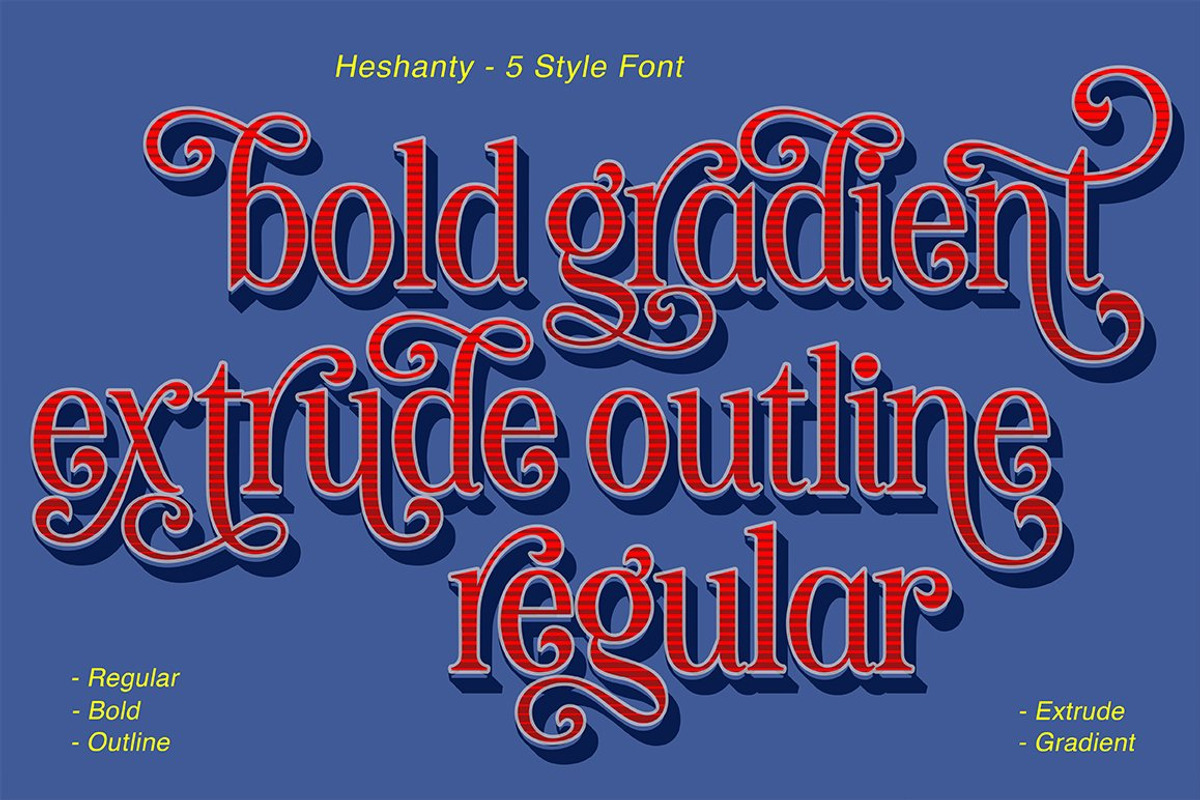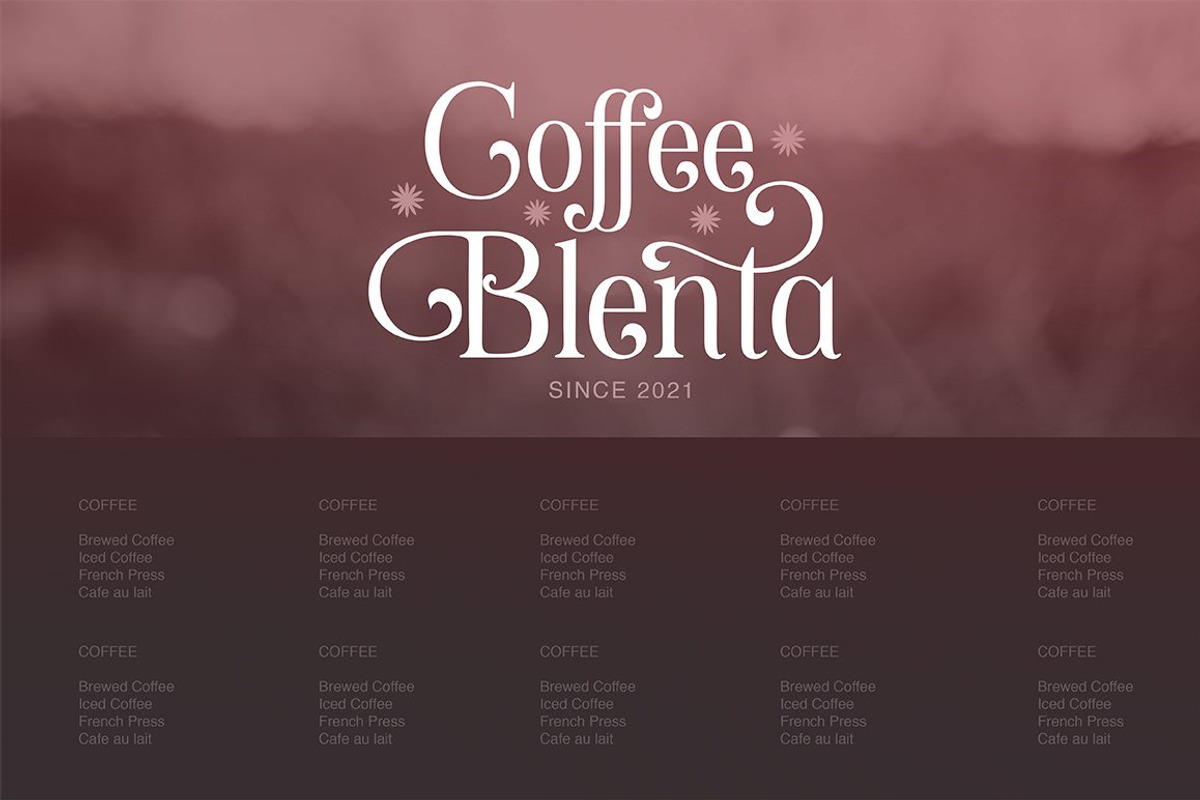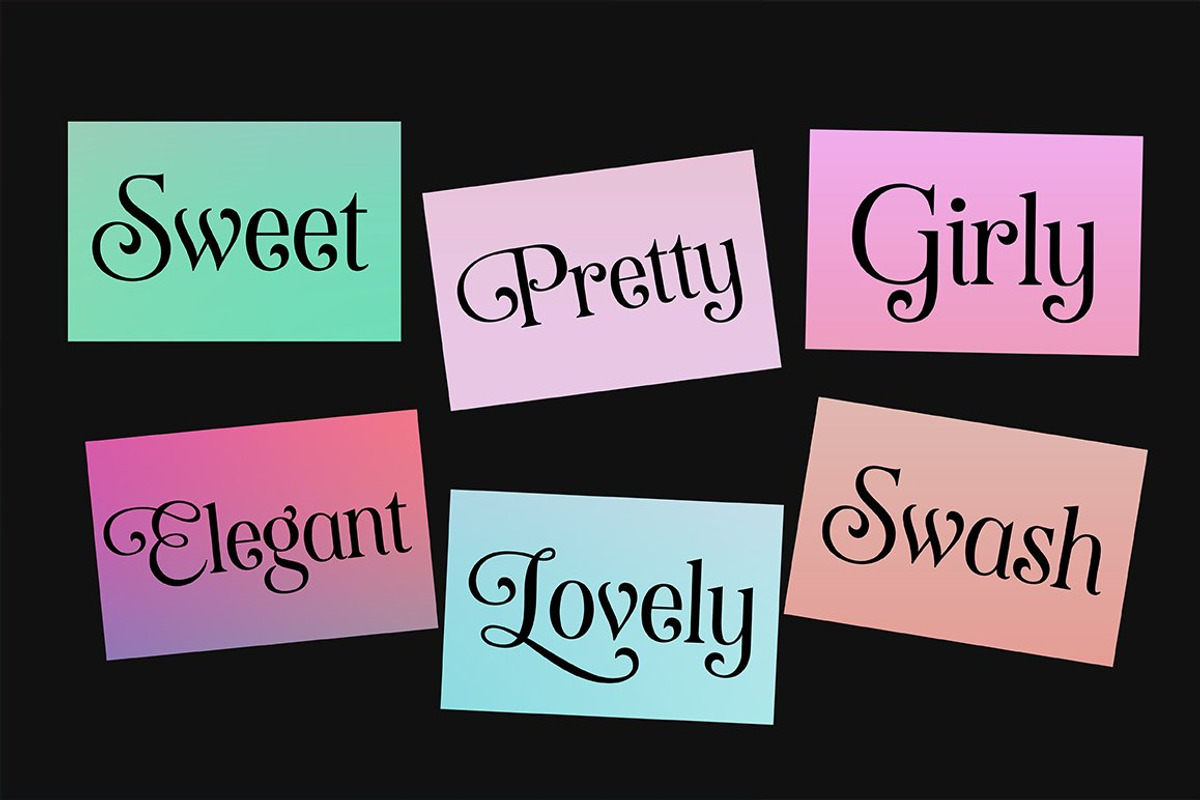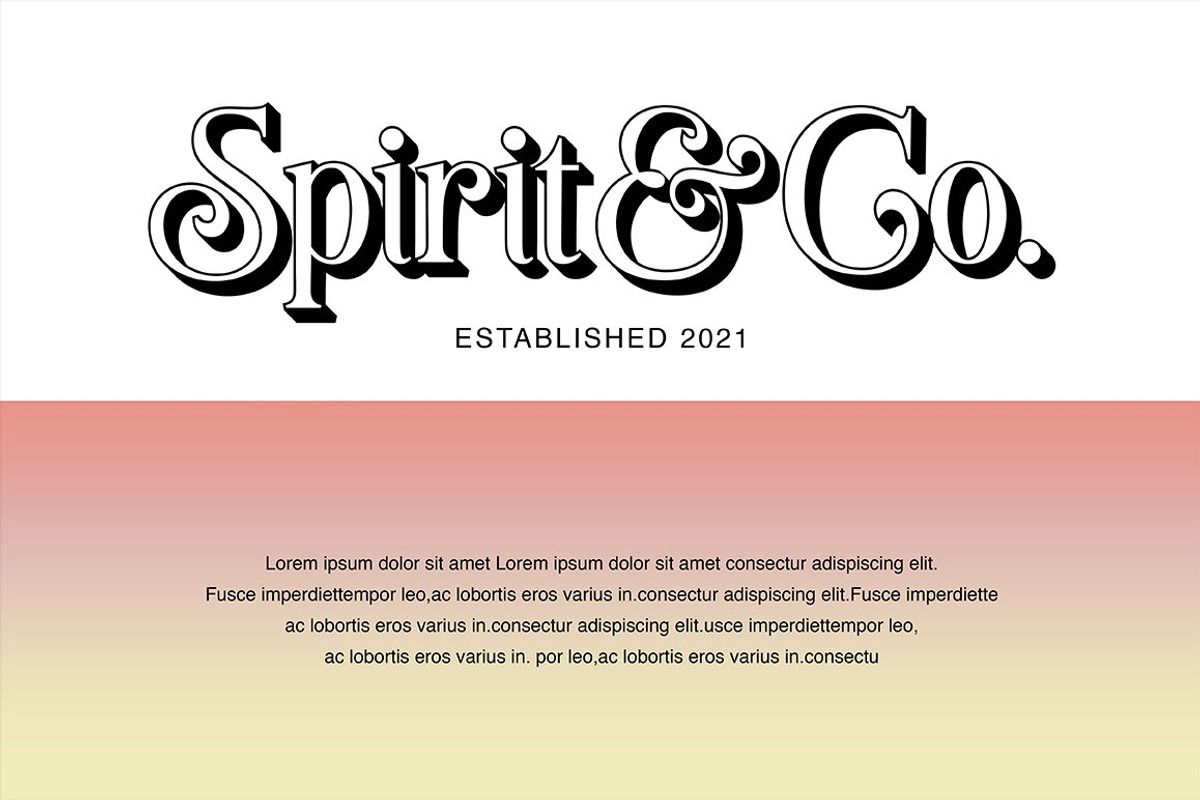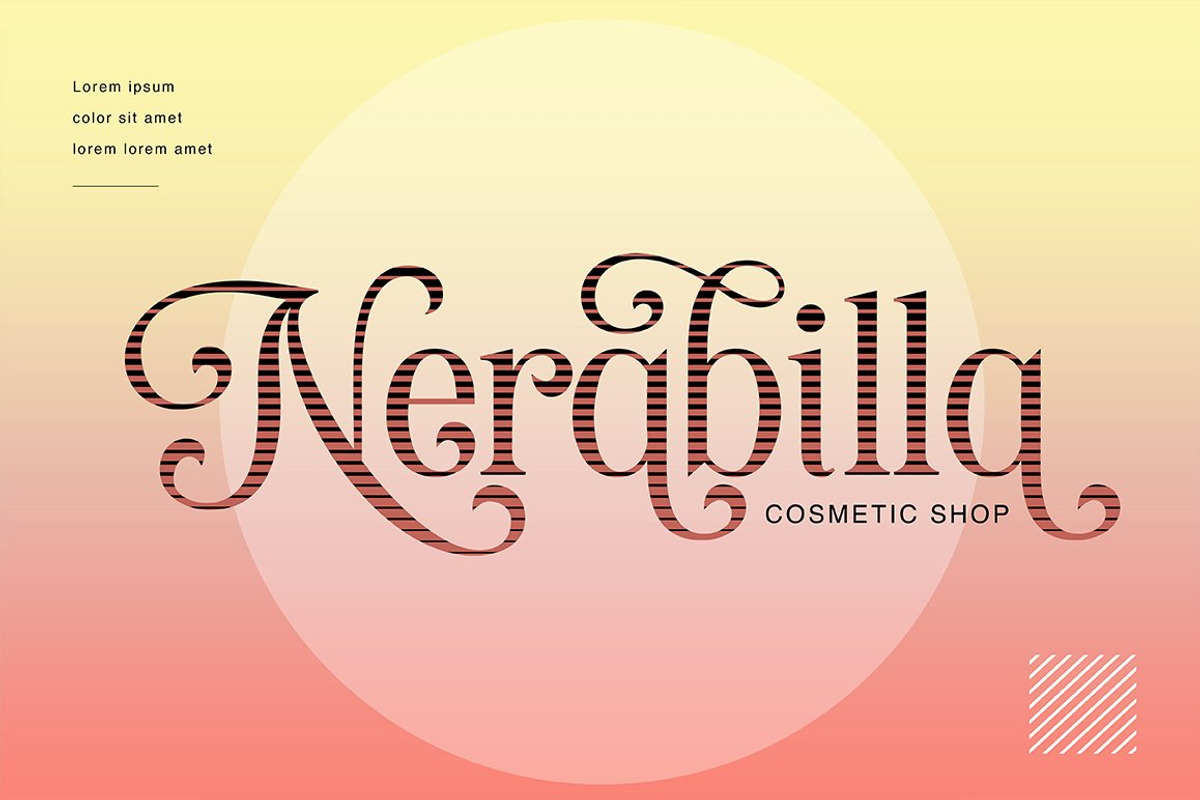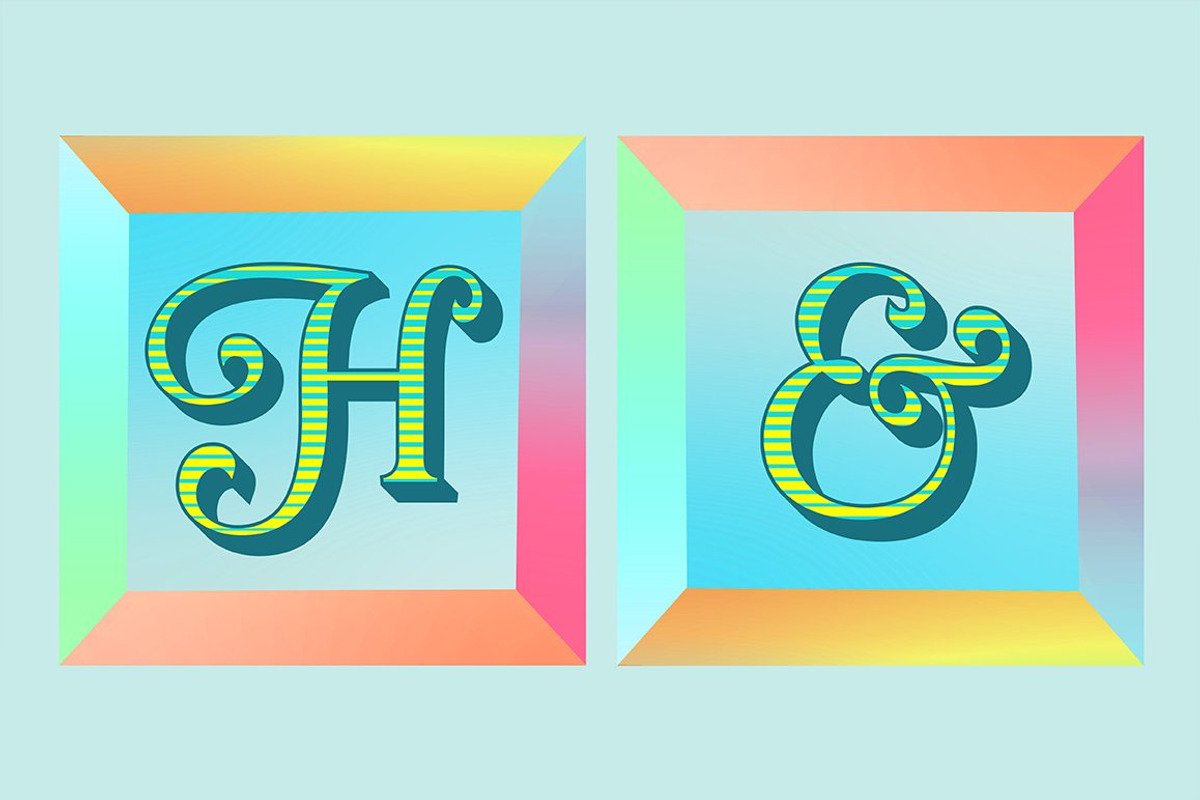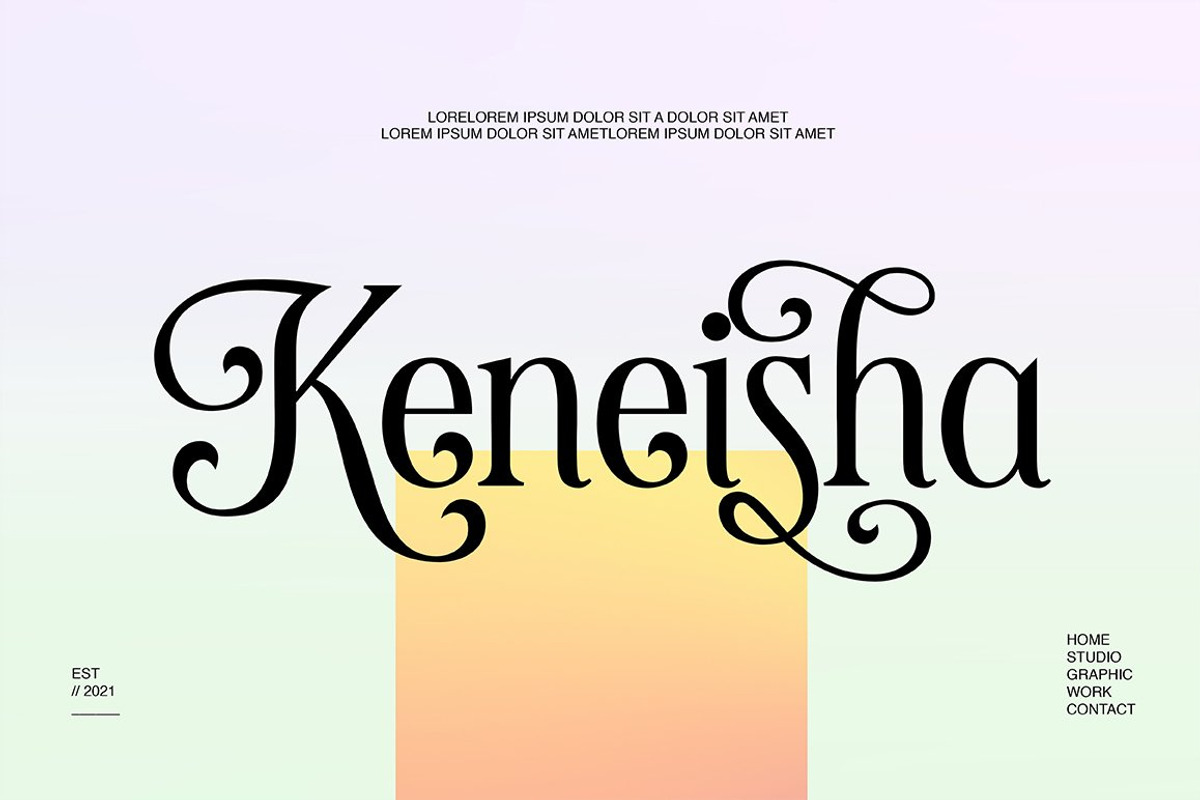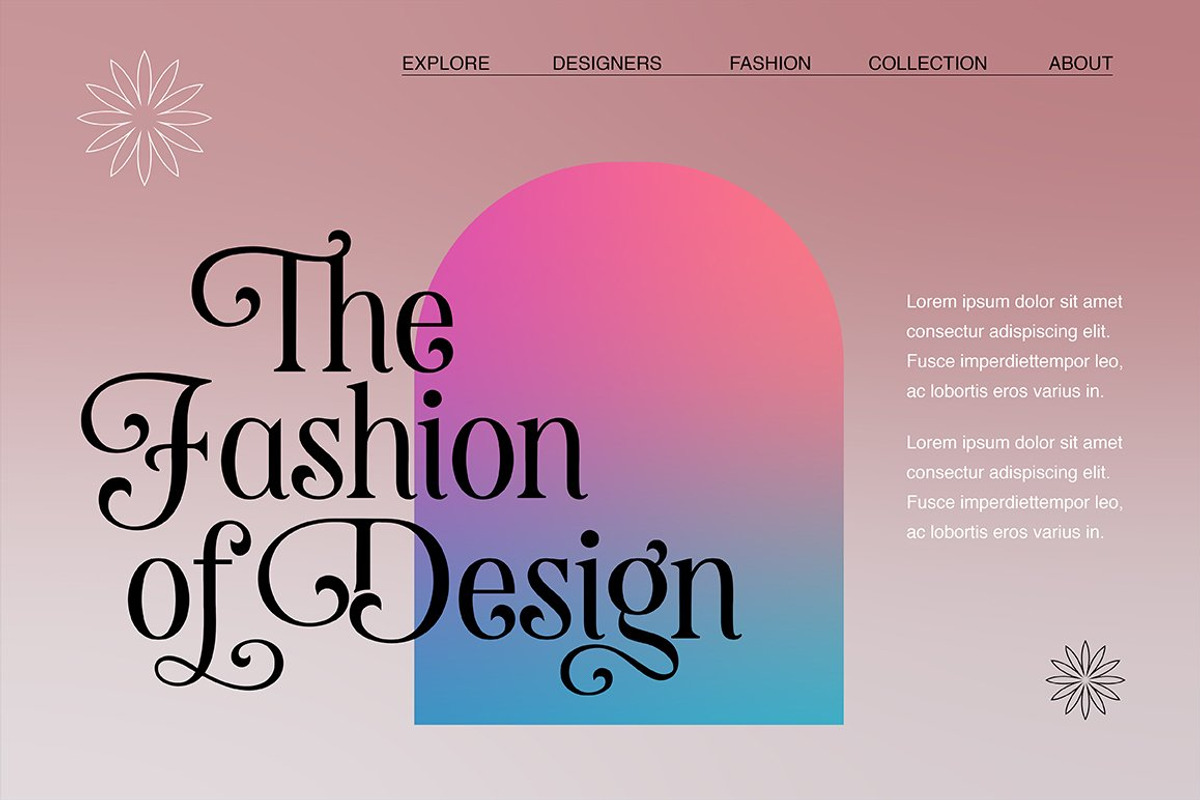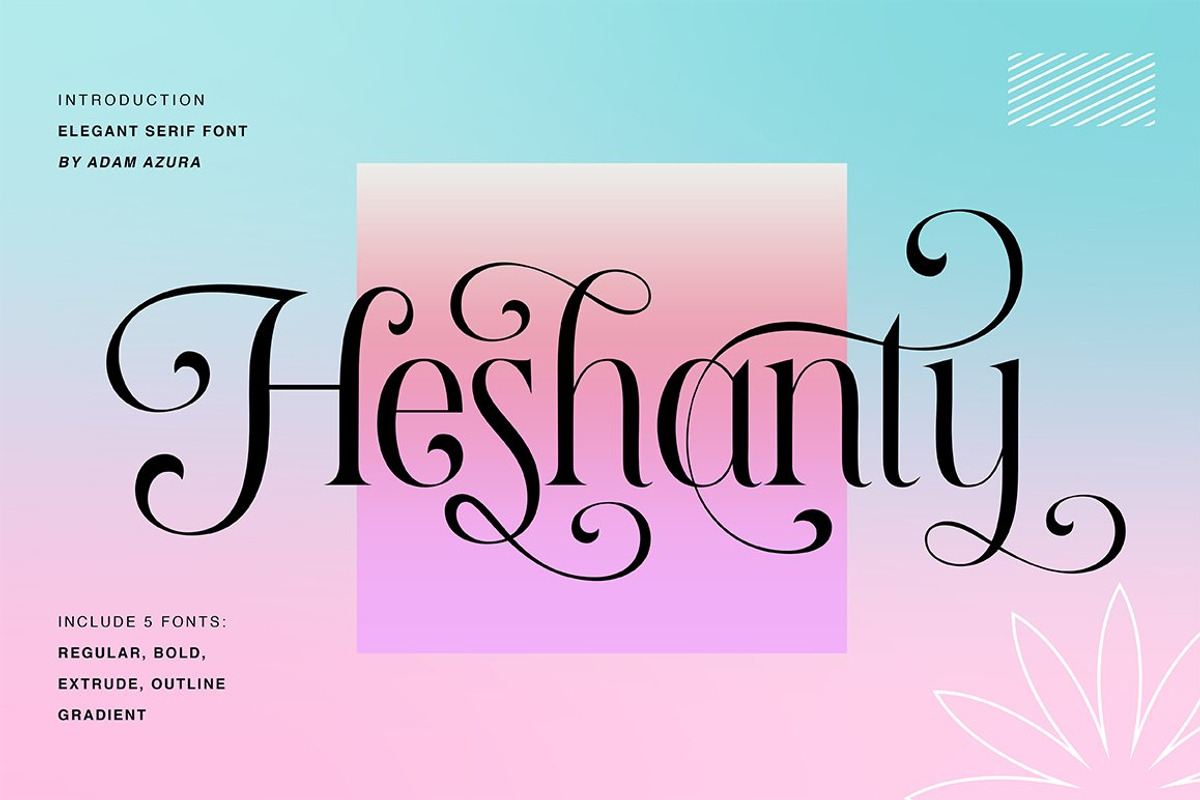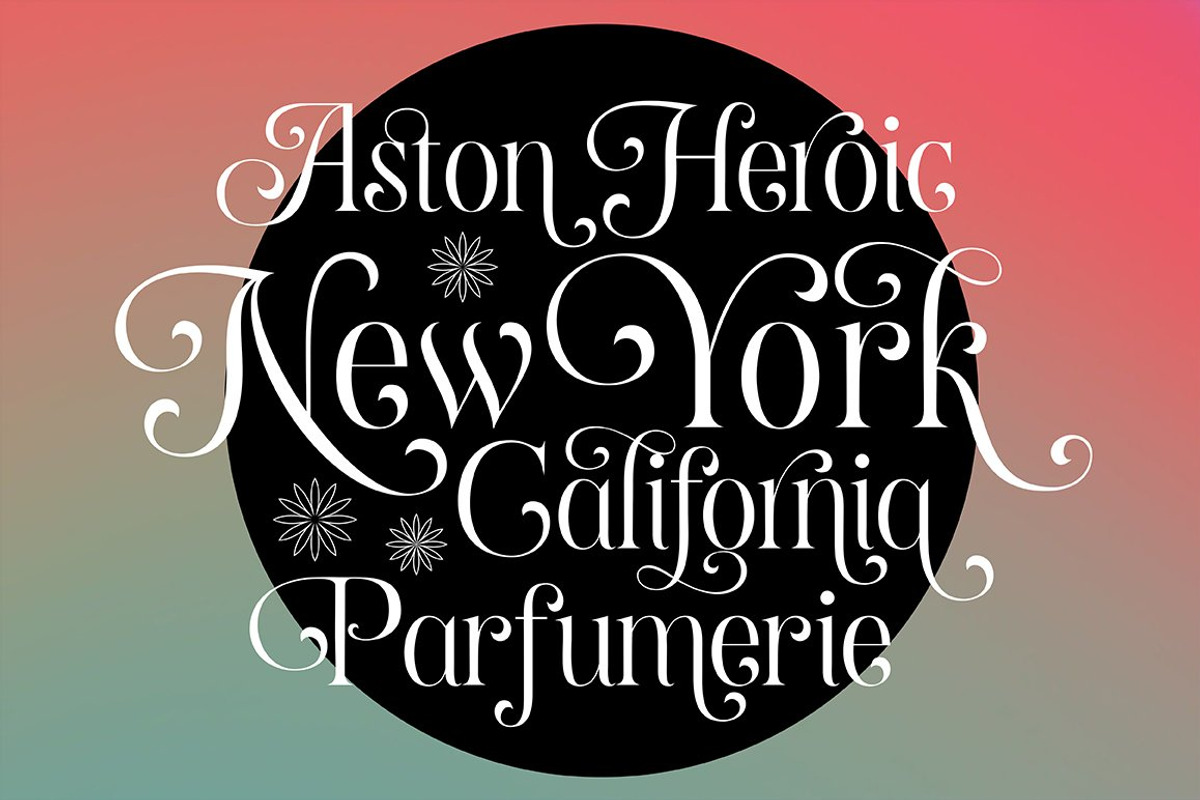
Heshanty Typeface is a luxurious display serif font with classic forms and modern style. Perfect for a wide range of uses. From greeting cards to magazines, wedding invitations, logos to website etc. Elegant and sensuality didone serif enhanced by ligatures, alternates and swashes. Heshanty Typeface makes it easier for the user to generate different levels/layers of communication thanks to its variety of styles. With this font you can solve entire decorative pieces of design with just one font, and that was the aim of it.